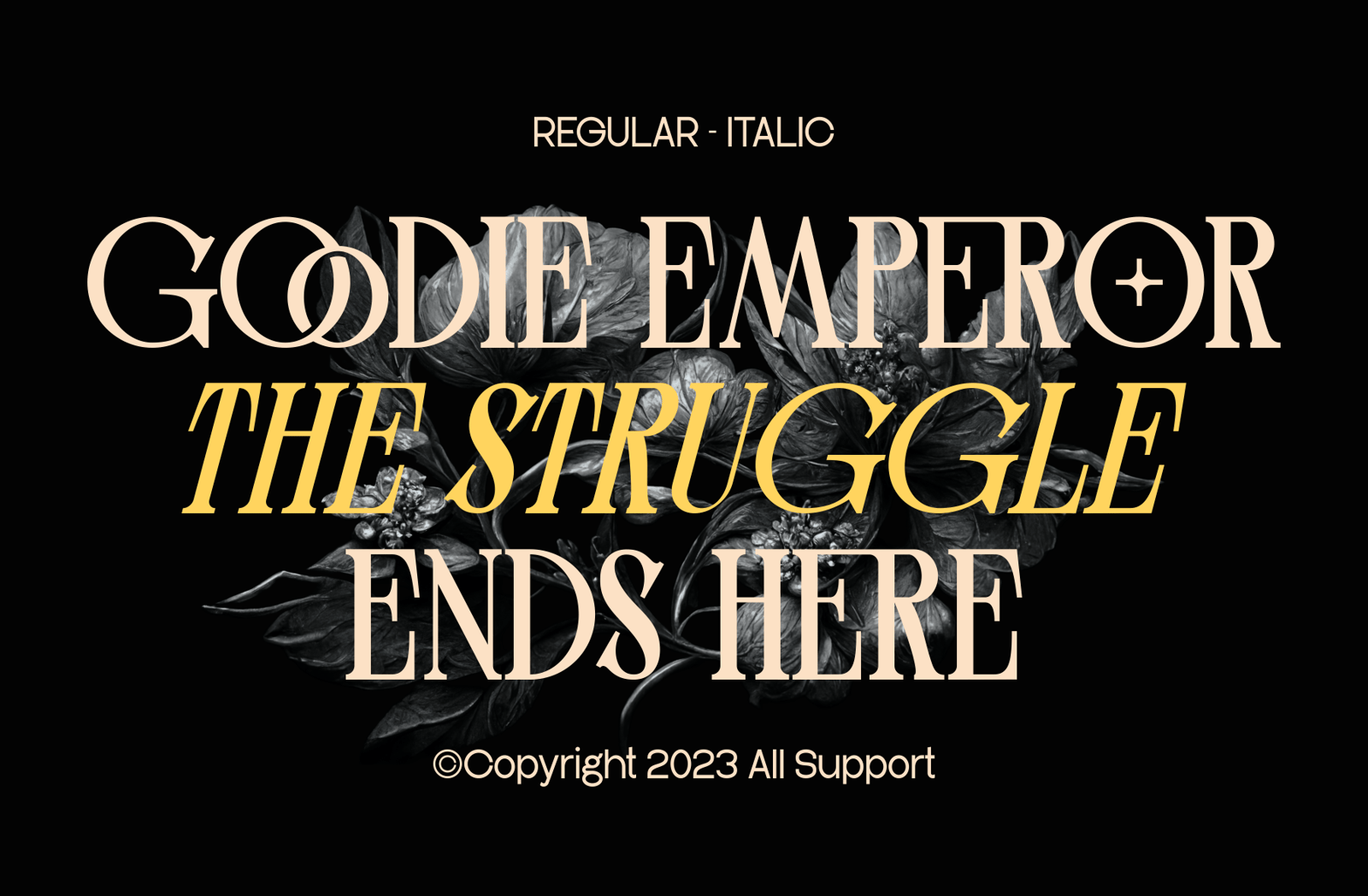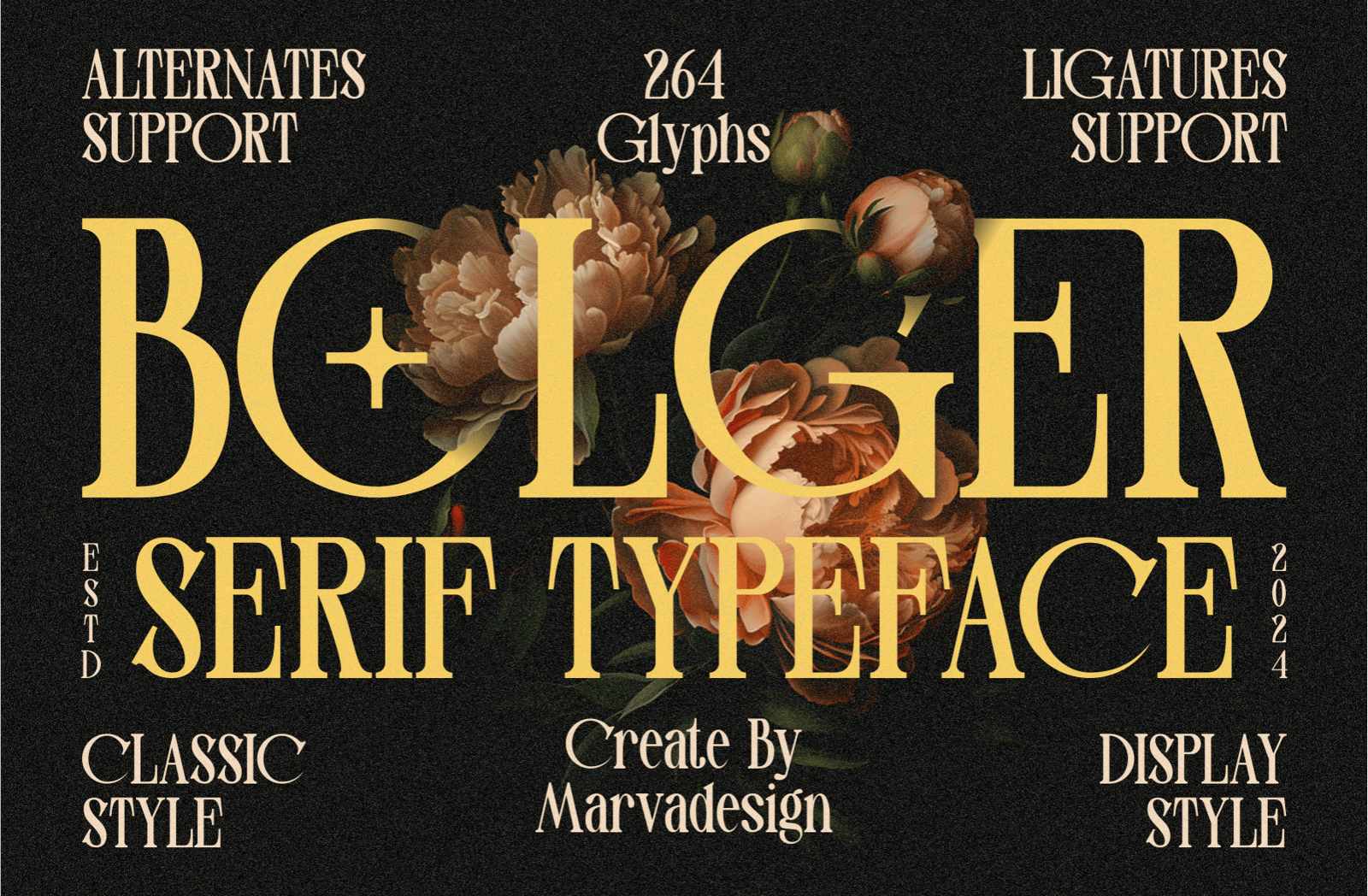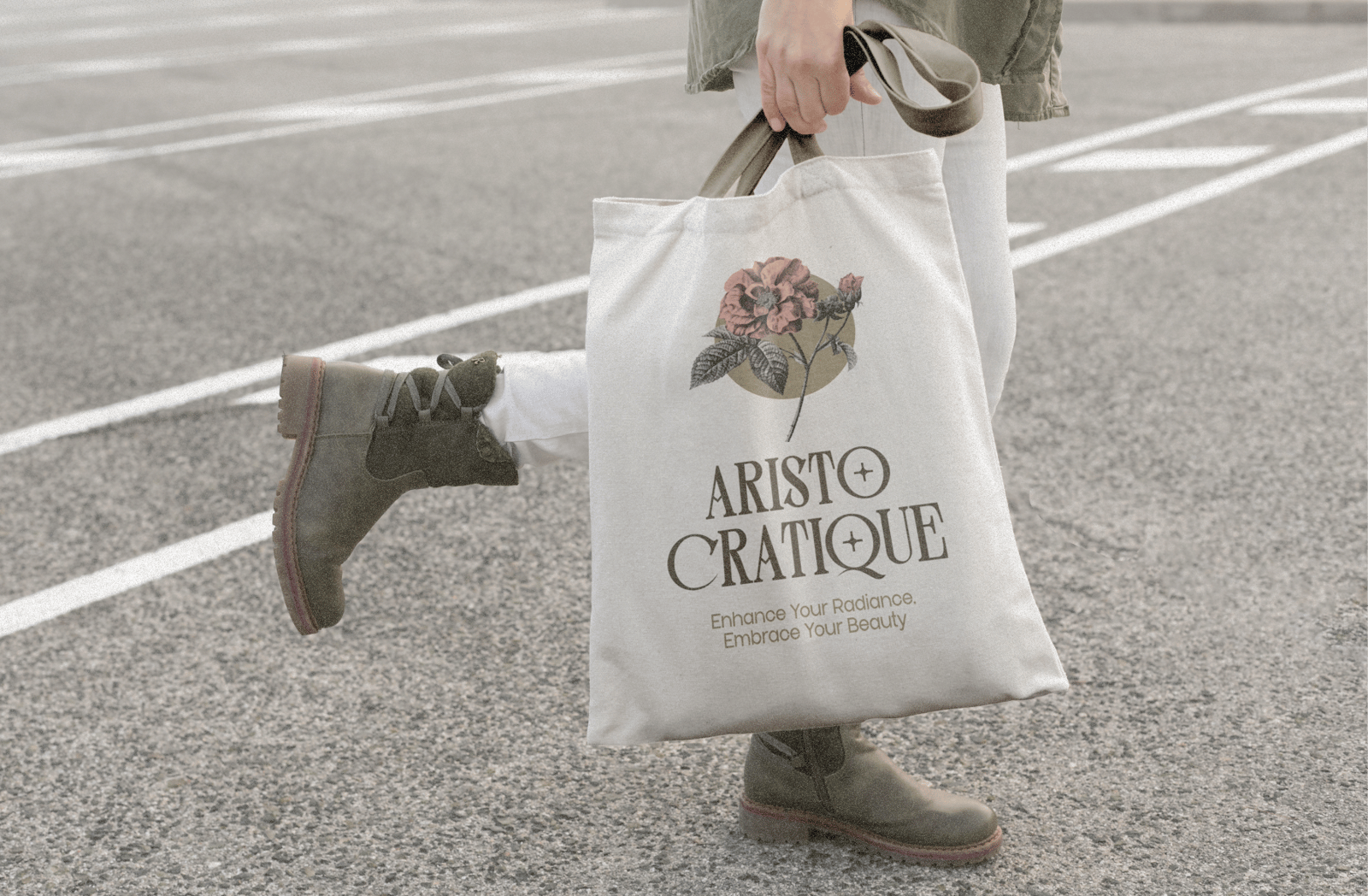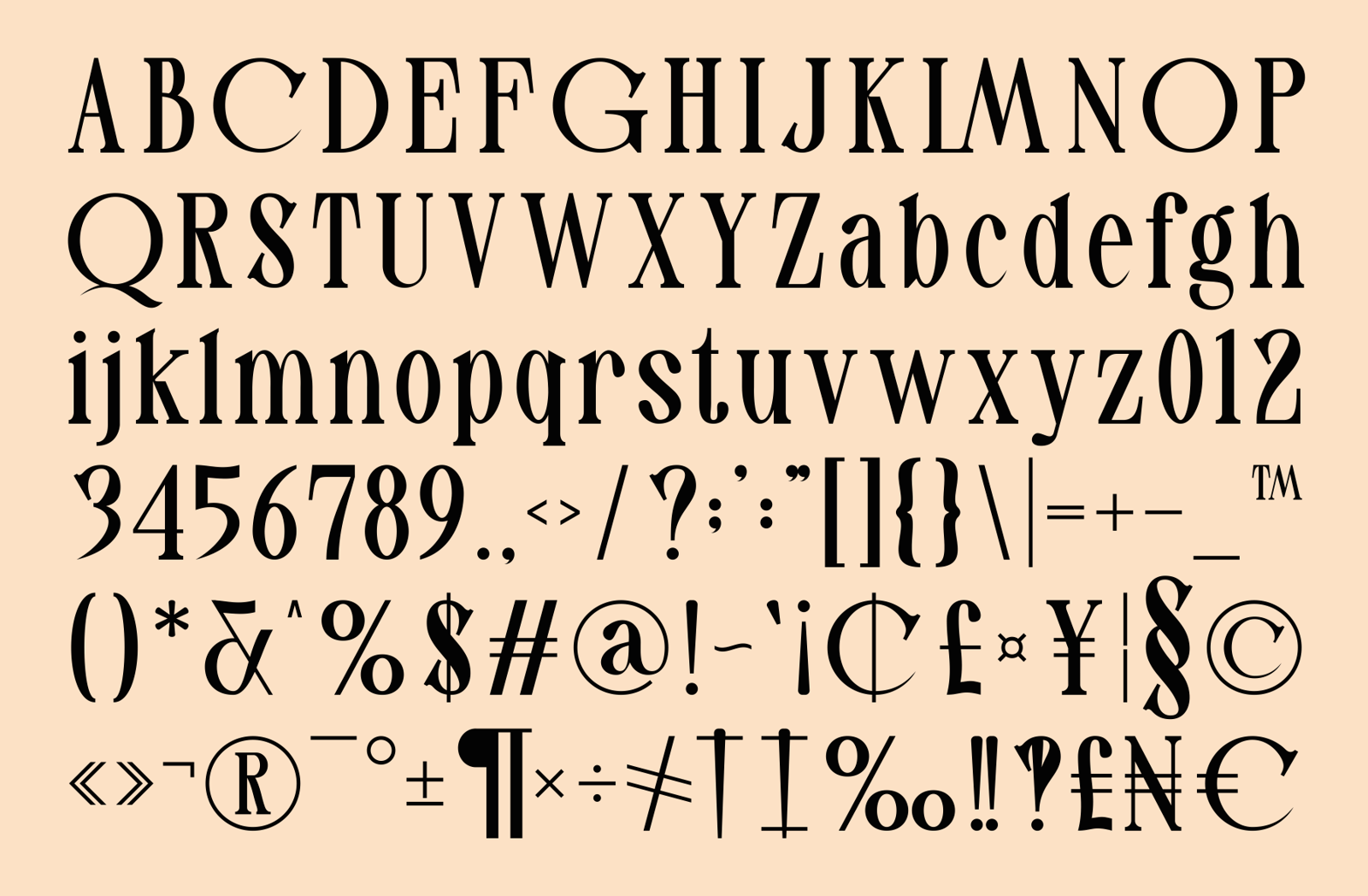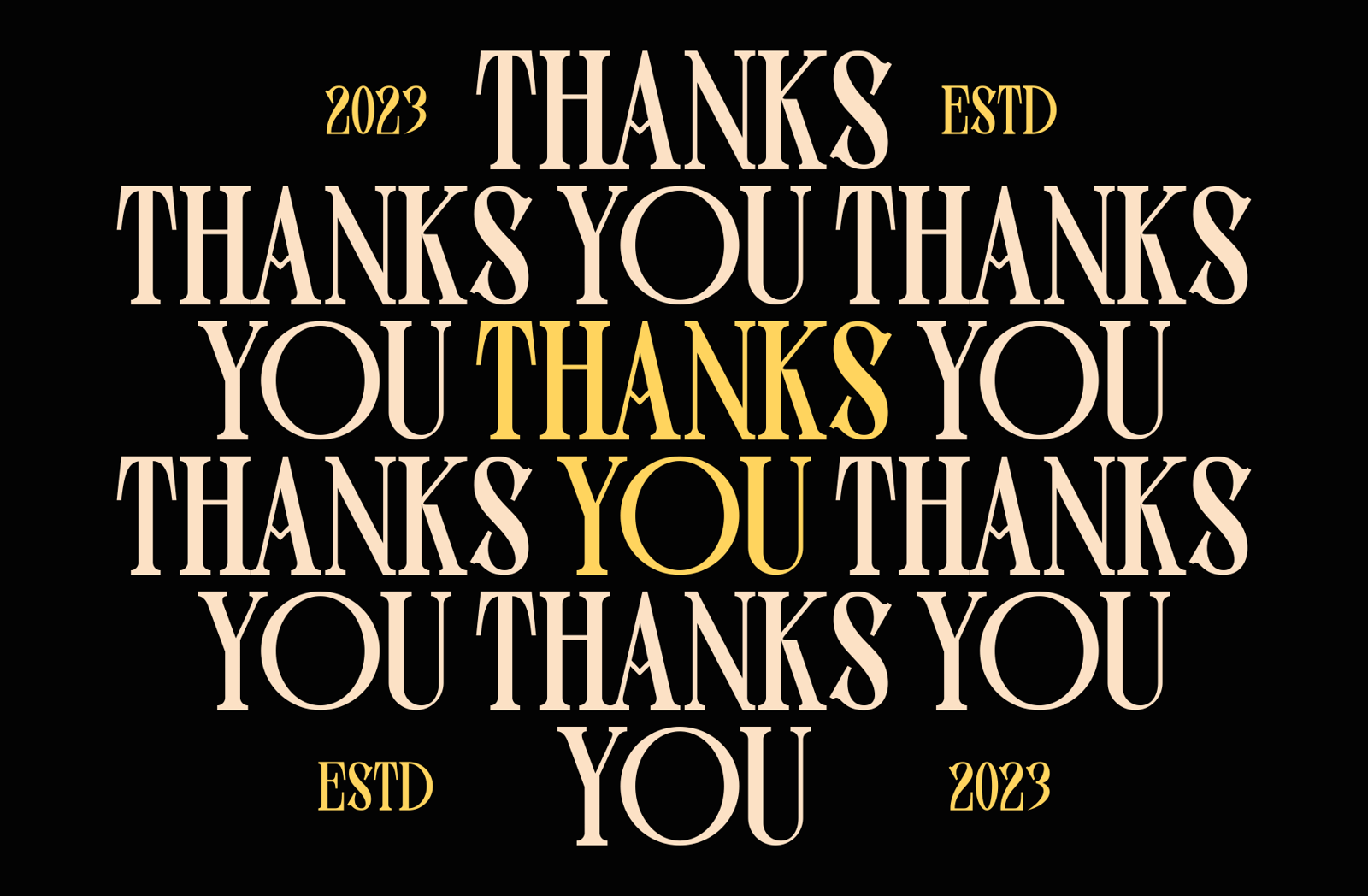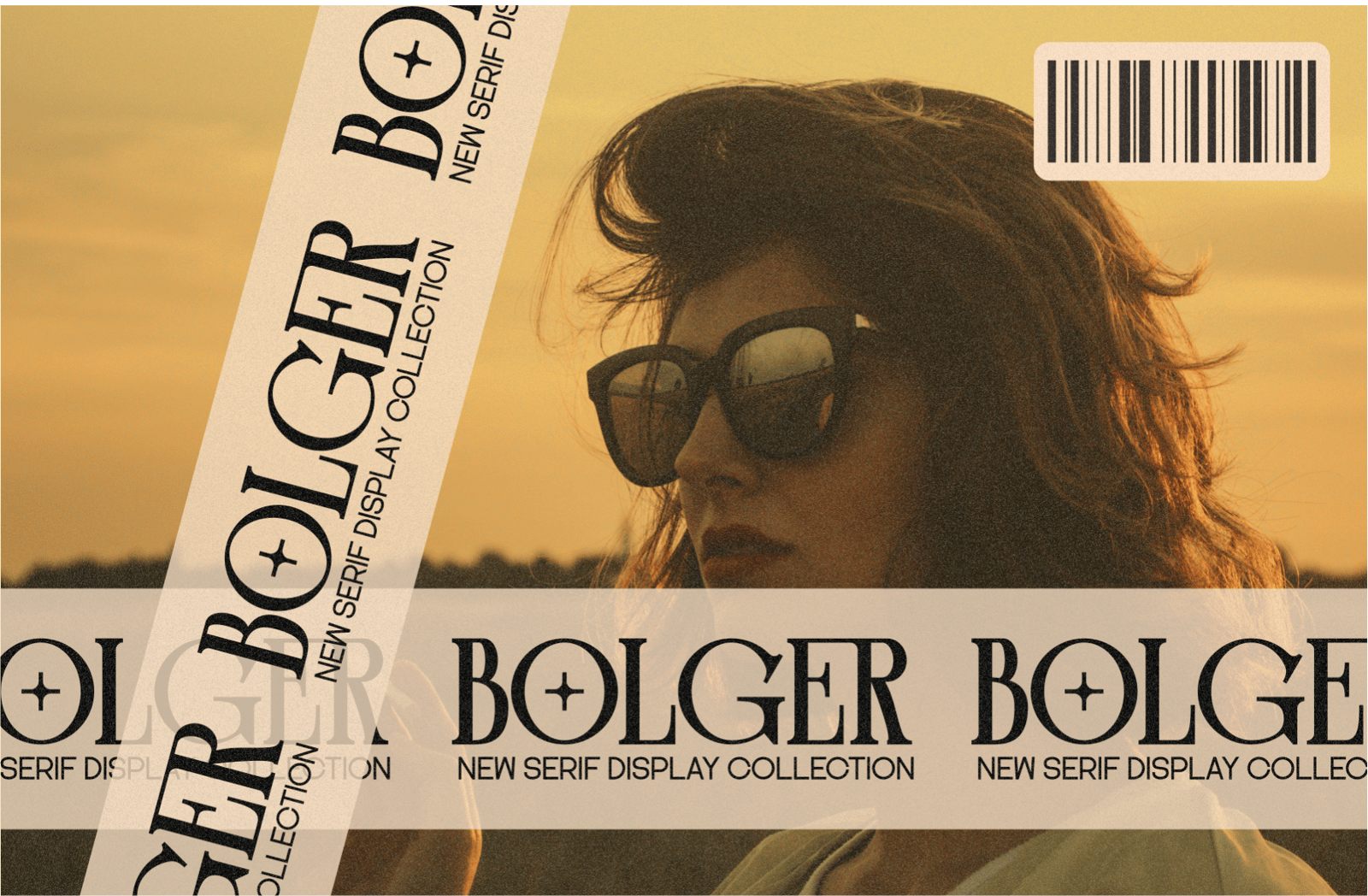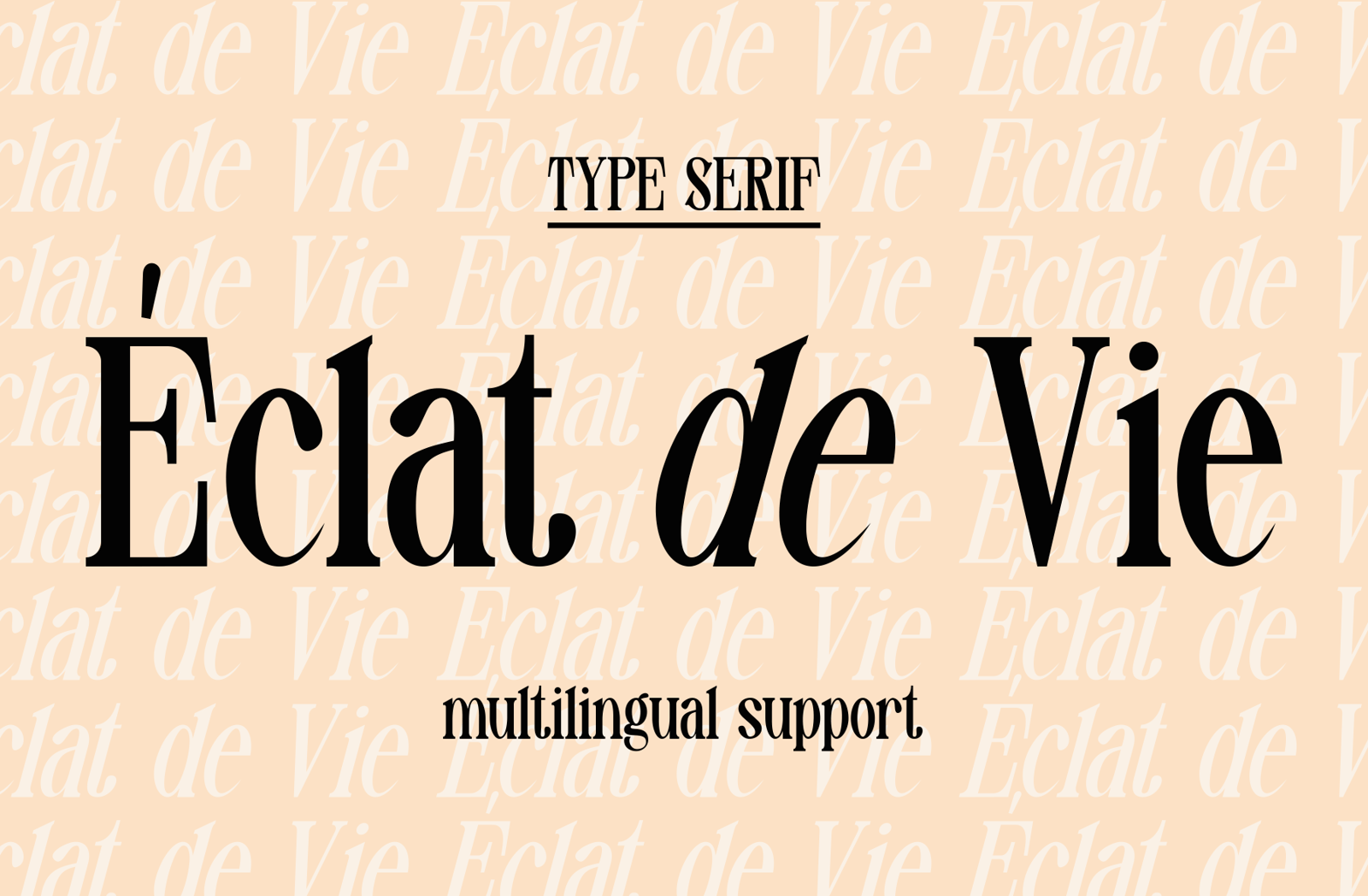
Bolger Font
Introducing our new product **Bolger Font** - Serif Display Font
**Bolger Font** - Serif Display Font authentic display font. The font is suitable for any branding project like logo, Template Design, Product and many more. outstanding in a wide range of contexts.
* Uppercase
* Lowercase
* Multilingual
* Ligature
* Alternate